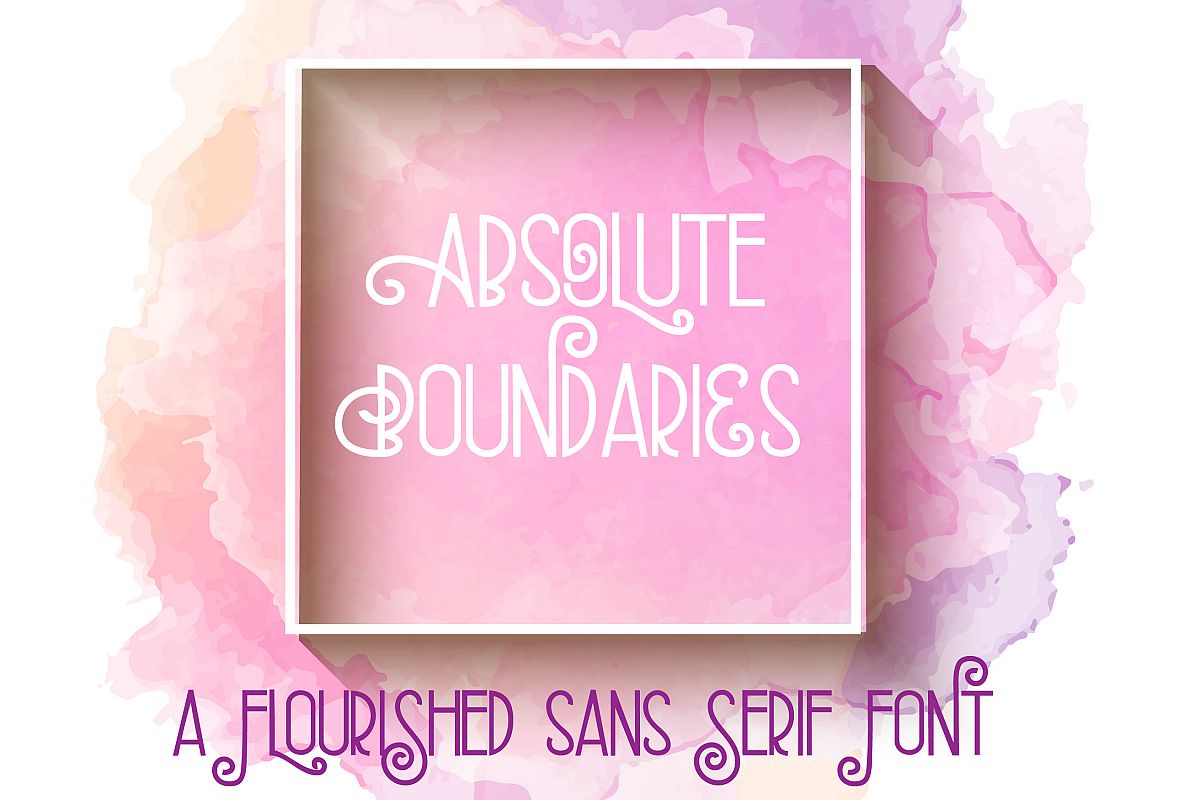
ZP Absolute Boundaries
This all caps font has a flourished uppercase and a lowercase without. Mix and match as you type for creative looks.
Numbers and symbols
International characters